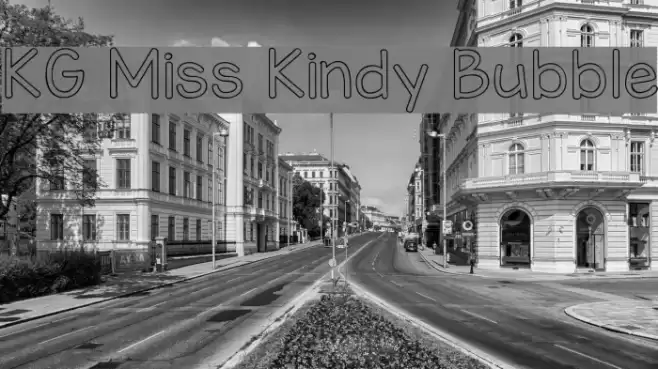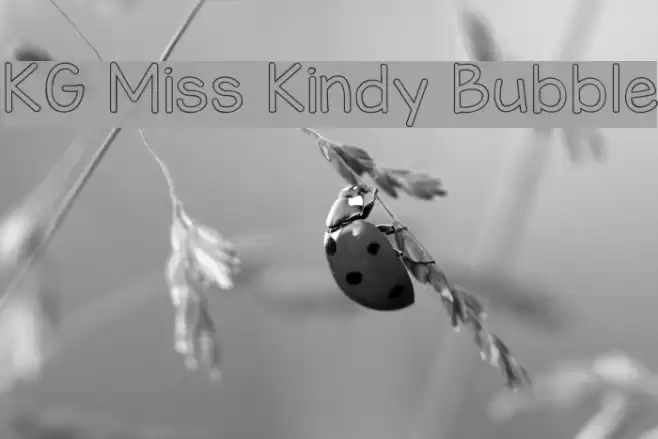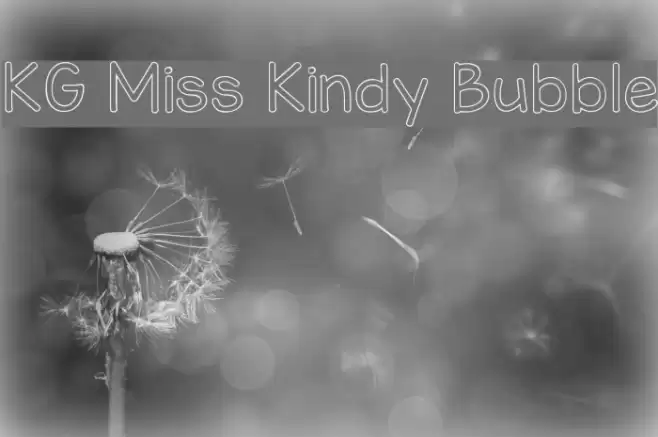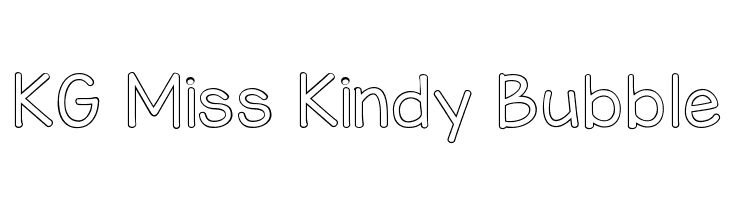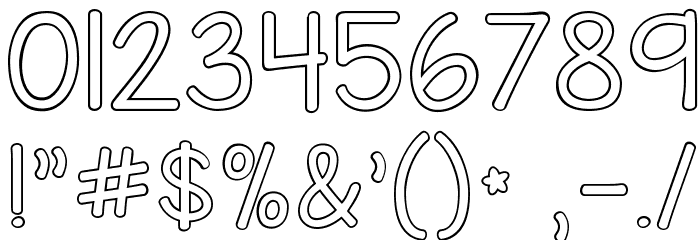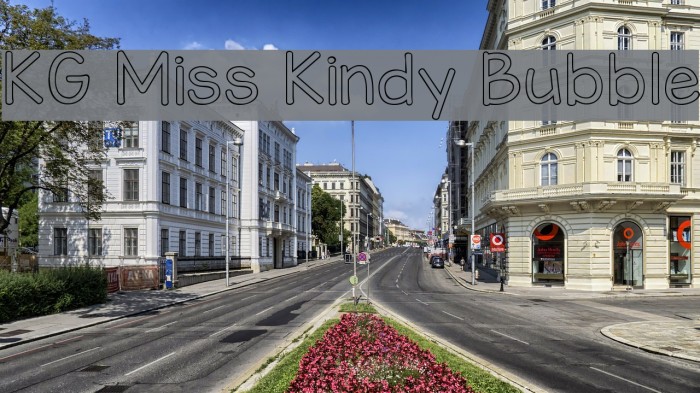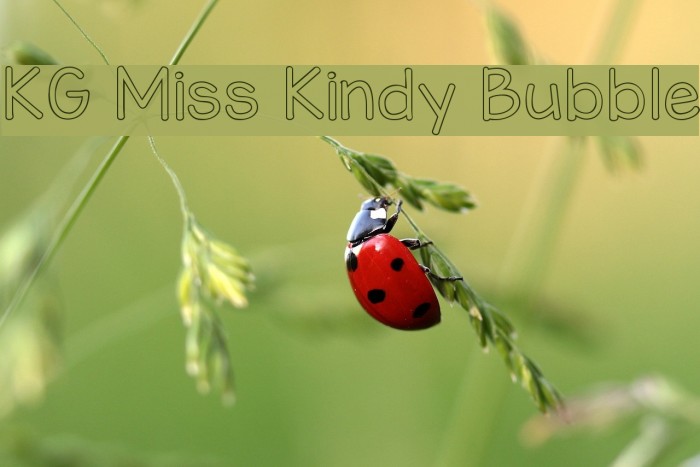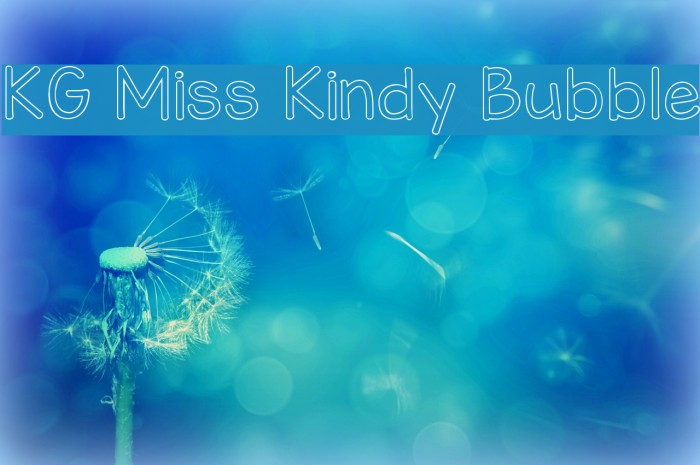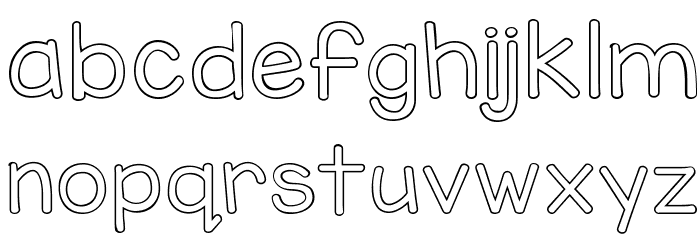
KG Miss Kindy Bubble
This playful and whimsical font features rounded, bubble-like characters that exude a sense of fun and creativity. The letters are outlined, giving them a unique, airy appearance that is both inviting and engaging. Each character maintains a consistent stroke width, contributing to a harmonious and balanced look. The font's design is reminiscent of childhood and innocence, making it ideal for projects that aim to capture a youthful and joyful spirit. Its clear and legible style ensures readability while maintaining a distinct personality.
A playful, bubble-like font with outlined characters, perfect for youthful designs.
- Proposed Projects: Ideal for children's books, educational materials, playful branding, and party invitations.
- Overall Style: Playful
- Use Case: Headlines, Logos, Posters